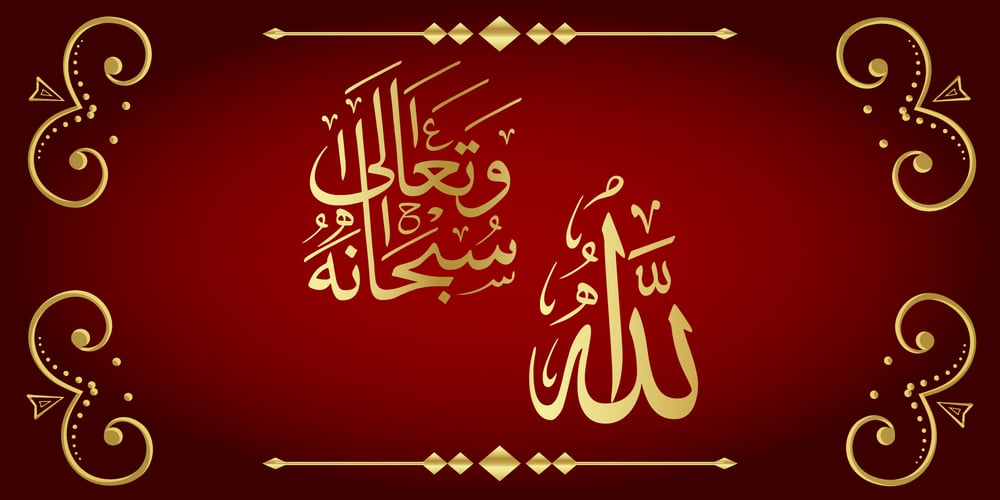
99 Names of ALLAH Subhanahu Font Family was designed by Ibrahim Abdo and published by Islamic Calligraphy75. 99 Names of ALLAH Subhanahu contains 1 styles and family package options. We have transformed the “99 names of ALLAH” into a font. That means each key on your keyboard represents 1 of the 99 names of ALLAH Aaza Wajal. The fonts work with both the English and Arabic Keyboards.We call this Calligraphy “Subhanahu Wa Ta’ala” because we have added “Subhanahu Wa Ta’ala” to each and every name. The first “Alef” has a “hamzit wasel”, this indicates that the name can be pronounced both as “AR-RAHMAAN” or “R-RAHMAN” (in the zip file you will find a pdf file explaining the differences in the “harakat”, pronunciation and spelling according to the Holy Quran). The calligraphy is rectangular shaped, and the “fatha” is big and covers almost the entire name, in most of the names.Decorative letters used in this calligraphy: “Mim, Aain, Sin, HHe, He, Ta, Kaf & Saad”.Purpose & use:- Writers: Highlight the names in your texts in beautiful Islamic calligraphy.- Editors: Use with kinetic typography templates (AE) & editing software.- Designers: The very small details in the names does not affect the quality. Rest assured it is flawless.The MOST IMPORTANT THING about this list is that all the names are 100% ERROR FREE, and you can USE THEM WITH YOUR EYES CLOSED. All the “Tachkilat” are 100% ERROR FREE, all the “Spelling” is 100% ERROR FREE, and they all have been written in accordance with the Holy Quran. No names are missing and no names are duplicated. The list is complete “99 names +1”. The +1 is the name “ALLAH” ‘Aza wajal.Another important thing is how we use the decorative letters. In every font you will see small decorative letters, these letters are used only in accordance with their respective letters to indicate pronunciation & we don’t include them randomly. That means “mim” on top or below the letter “mim”, “sin” on top or below the letter “sin”, and so on and so forth.Included: Pdf file telling you which key is associated with which name. In that same file we have included the transliteration and explication of all 99 names. Pdf file explaining the differences in the harakat and pronunciation according to the Holy Quran. —————————————————————————————————————————Here is a link to all the extra files you will need:https://drive.google.com/drive/folders/1Xj2Q8hhmfKD7stY6RILhKPiPfePpI9U4?usp=sharing—————————————————————————————————————————https://drive.google.com/drive/folders/1Xj2Q8hhmfKD7stY6RILhKPiPfePpI9U4?usp=sharing